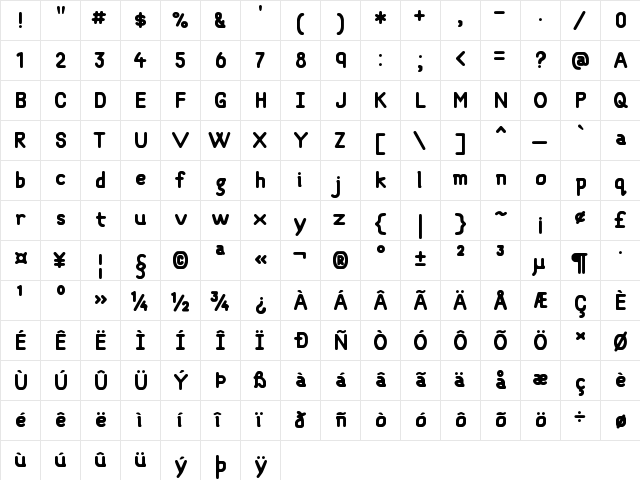
Objective Bold
Design Context for Objective Typeface
Objective takes a measured approach to typography — its balanced proportions and neutral character make it a reliable workhorse for both digital and print work. Its bold stroke weight gives it real presence on the page.
Pro Tip: Pair Objective with a font of contrasting weight or personality to build a more expressive typographic hierarchy.